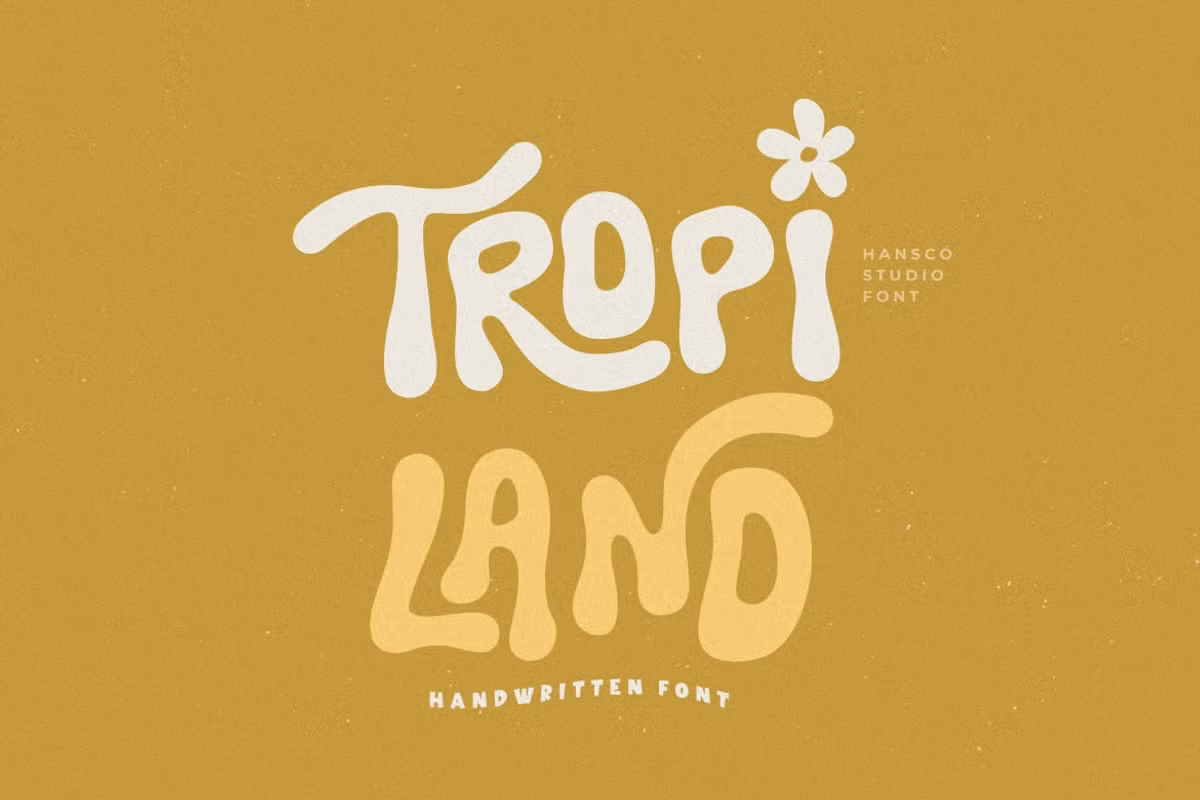
Tropi Land Font Free Download is a fun, tropical-inspired typeface that brings a playful and sunny vibe to any design project. Please note: you must purchase this font for commercial use, but you can test it through a free download. With its bold curves, cheerful style, and vacation-ready feel, Tropi Land is perfect for summer-themed branding, travel posters, beach party invitations, packaging, and social media graphics.
This font is bursting with personality—ideal for creatives looking to add warmth, color, and a relaxed mood to their typography. Whether you're designing for a tropical drink label or a destination event, Tropi Land Font Free Download delivers eye-catching charm with laid-back energy. It’s fully compatible with Adobe Illustrator, Photoshop, Canva, and more, making it easy to integrate into your workflow. Download it today for personal use and give your designs that fresh, fun, island-inspired flair!